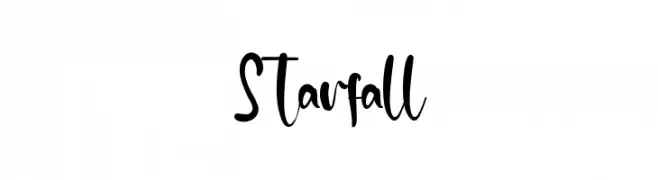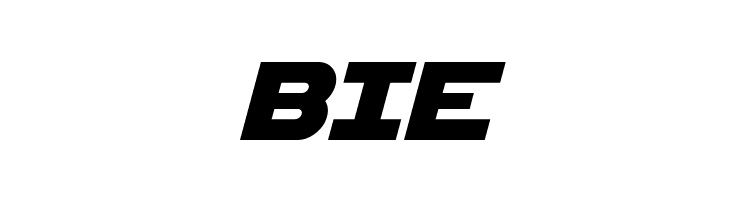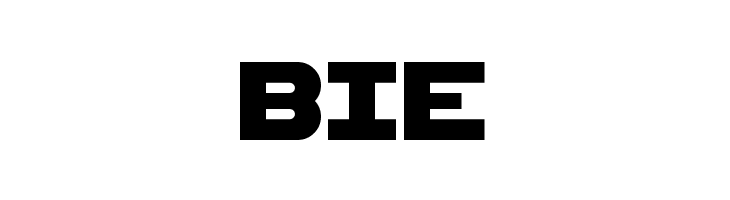
A geometric, outlined font with a modern and structured design.
A bold, rounded font with a playful and whimsical style.
A bold, flowing script font with a dynamic and energetic style.
A bold, energetic handwritten font with expressive strokes.
A bold, hand-drawn font with a rugged, vintage feel.
A playful, hand-drawn script font with dynamic, flowing strokes.
A bold, futuristic font with geometric shapes and a sci-fi aesthetic.
A bold, italicized font with a futuristic and dynamic style.